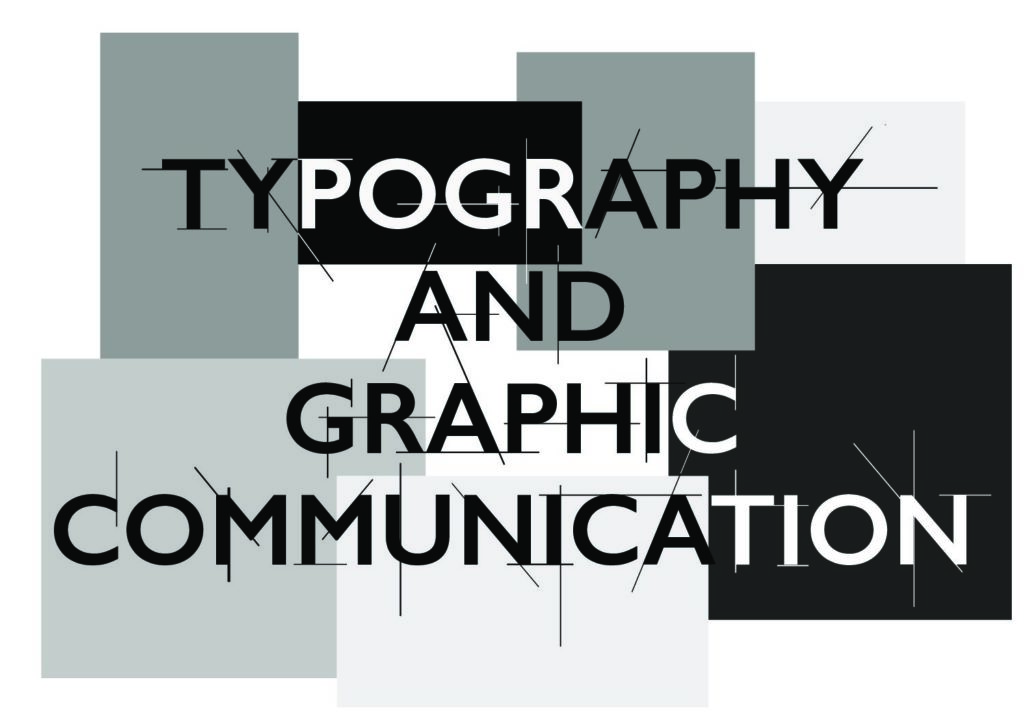
Design Ideas and Design Process
Sticker 1: For my first sticker, I decided to incorporate a modernist style using geometric shapes, lines, and bold writing. One of my postcards was what inspired me to create this sticker as I felt the modern traits helped draw attention to the text and I thought they made the overall design generally more eye-catching and interesting. Whilst I knew I wanted to create a modern sticker; I wasn’t entirely sure how to create it. To help gain ideas, I sketched out specific letters that I would include, and I illustrated around them until I found a look which I liked, and thought worked well for the overall style. I also experimented around on illustrator with font sizes and colours before finally settling on black, white, and grey tones. This design helped me a lot with regards to getting my bearings in illustrator, and learning about how it works generally speaking.
Sticker 2: For my second sticker, I chose to create it with a softer, more artistic and creative feeling. To achieve this, I planned on writing out the text and then adding illustrations such as soft shapes and patters which would flow from it. Whilst I wanted to stick with this plan fully, I ended up changing a few things along the way. Instead of leaving the inside of the sticker plain white to help draw attention to the illustrations merged with the text, I chose to fill in the sticker with a grey tone that gets darker the further away it gets from the centre. This made the sticker feel almost like a metal plaque. Whilst it didn’t go entirely to plan, I feel like this design was successful at helping me develop my skills and knowledge of illustrator. I also managed to add a boarder to it which helped make it look more like a sticker.
Sticker 3: My third sticker was easily my least favourite and successful. This was because my design didn’t go to plan at all and so much changed along the way. In the beginning I was planning on manually adding the text to the sticker using the brush tool as I wanted to make another artistic looking sticker, as well as wanting to explore the brush tool and what it has to offer to help me develop my skills. This proved unsuccessful as it was very hard to manually add the text without it looking messy and poorly made. To make up for this, I used a font called ‘sign painter- house script’. This looked like it had been painted as the letters seemed to flow more smoothly. I then used the paintbrush tool to add splashes of paint to the ends of letters, making them look like they had been messily painted on, without making the whole sticker look messy. The one issue I encountered however was that the whole sticker looked rather boring. To solve this issue, I added ink splatters in some of the empty areas. Whilst the design wasn’t as nice as I thought it would be, I think it definitely helped me develop my skills as I managed to explore the die cutting feature more, and I also got the chance to explore the brush options. Not only that but I also figured out how the edit the control panels, giving me the chance to add and subtract the more important tools which I needed.
Paint experiments
Sticker 1: When creating my first sticker, I used a few software tutorials to help me figure out how to die cut my sticker. I also watched two YouTube tutorials to help me merge layers and shapes so that I could die-cut them. Whilst I was able to merge the layers together, the die-cutting was not as successful as the sticker was made of multiple shapes and even though I merged them, they were still seen as individual shapes when I tried creating a 0.5pt boarder.
Sticker 2: In order to successfully die-cut my second sticker, I used the same tutorial as I did for my last sticker. The die-cutting process was much more successful in this sticker than it was in the last one as the whole sticker was based on a single shape. I also watched a YouTube tutorial and looked at the adobe website when making this so that I could work out how to make my brush strokes smoother so that my illustrations appear more professionally done. Not only this but I also looked at the adobe website for help on how to create a gradient colour blur within my sticker.
Sticker 3: Whilst my third sticker was definitely my least favourite and most unsuccessful, I gained quite a few new skills from it including how to find and change different brush settings, how to alter the control panels, and how to make a more effective looking die-cut border. To do this, I watched a YouTube tutorial explaining how to find the different brush settings and how to use them. I learned how to manipulate the control panels simply through experimenting and exploring illustrator. Finally, when it came to die-cutting, I simply watched the same video from before, and then experimented further.
Sticker 1: Two large inspirations for my first sticker were the modernist movement and Dutch painter Piet Mondrian, specifically, his painting ‘Composition with Red, Blue, Black, Yellow, and Gray’. I loved the painting because of the bold colours and blocky modernist layout. Whilst I wanted to make a sticker like this, I also didn’t want colour to distract from the text as that is the most important part of it. Because of this, I chose to make all of the shapes black and white and grey. My second source of inspiration is hard to explain, however it was essentially the faded lines you see in architectural sketches that are used for accuracy. I liked how the lines made architectural sketches look technical and industrial, yet still creative. I chose to incorporate this into my text, as if the text is something which was designed and planned before being manufactured.
Sticker 2: When coming up with the design for my second sticker, I knew I wanted to create one which looked more artistic and creative, and I also knew I wanted to merge my text with illustrations. In order to gain inspiration on how to illustrate my text, I created a mood board featuring a variety of images of text and letters with patters and shapes and visuals flowing from them. Some images were of old or old styled letters and some were clearly contemporary. Whilst I originally liked the idea of my text being heavily mixed with lots of visuals, I ended up simply decorating it with shapes and patters which flower from it as I found it was quite difficult to create my idea on illustrator. It also ended up looking quite messy. After creating my text, I decided to fill in the whole sticker with grey and I chose to make the grey fade as you look towards the centre. This made my sticker look like a metallic plaque which I actually quite liked. In order to then expand on this idea, I smoothened out the edge of the sticker.
Illustrated letters mood board
Sticker 3: My third and final sticker was heavily inspired by what I wanted my second sticker to be like. I intended on it looking messy but in a controlled and intentional way to make it appear more creative and artistic. I wanted the text to look like it had been painted onto the sticker using oil paint. I was somewhat inspired by the logo for the show ‘art attack’ as it looks like the text has been splattered onto the logo. After this idea fell through, I decided to use ink platters instead in an attempt to bring back the artistic theme. This worked somewhat however the whole sticker looks messy.